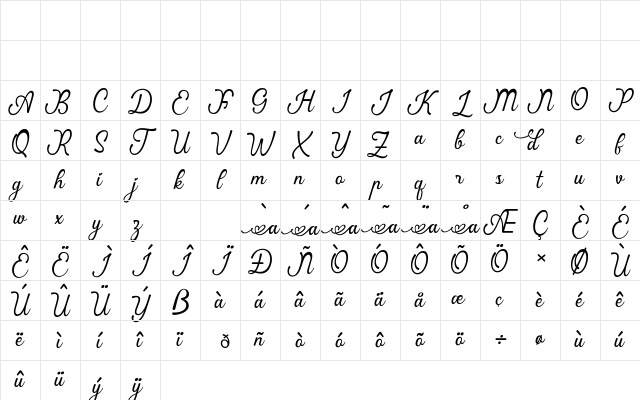
Ardila Regular Free Font
Ardila Regular
Designer: Rangga Singgih Subekti
Design Context for Ardila
Ardila is a composed and adaptable typeface that performs quietly and consistently across a wide range of design contexts.